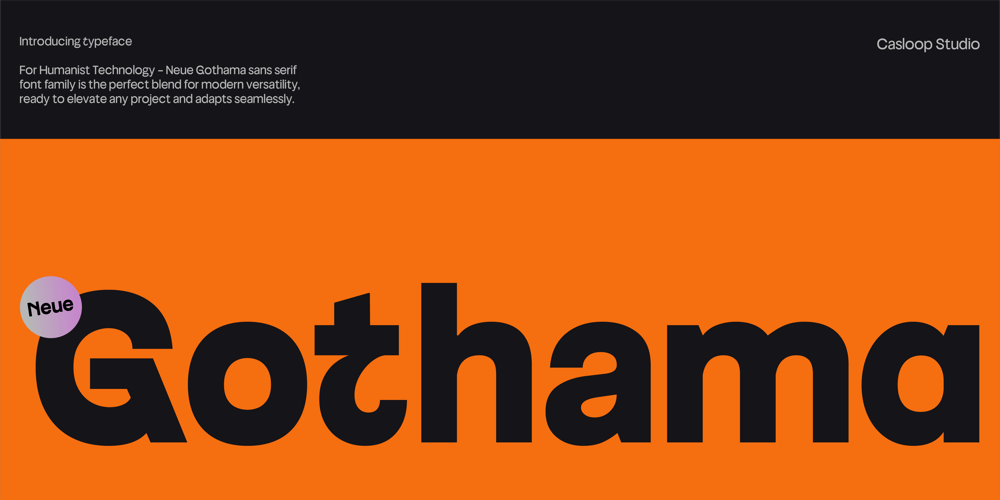
Neue Gothama
Neue Gothama font
Neue Gothama Font Family was designed by Wantara Putra and published by Casloop Studio. Neue Gothama contains 14 styles and family package options. eue Gothama is a geometric sans-serif typeface that harmoniously blends humanist and neo-grotesque elements, making it the perfect choice for any professional design need. Its contemporary and sleek design, coupled with distinctive uppercase characters and a large x-height, ensures that your text stands out with clarity and impact. This premium font family boasts a wide range of weights, from thin to bold, in both upright and oblique styles. Its minimalist and expressive forms are designed to be highly legible, even at small sizes, making it an ideal choice for corporate branding, packaging, websites, and digital media visuals.Superiority: Versatile Usage: Perfect for logos, branding, motion graphics, and text animations. Dynamic and Impactful: With short descenders and a geometric structure, Neue Gothama ensures a modern and timeless aesthetic. Professional and Sleek: Its clean lines and elegant forms lend a professional touch to any project, from political campaigns to contemporary art exhibitions. Supported Languages: Bosnian, Catalan, Czech, Malayalam, Danish, German, English, Spanish, Estonian, Finnish, French, Brice, Irish, Croatian, Hungarian, Icelandic, Italian, Lithuanian, Gen z, Latvian, Maltese, Dutch, Norwegian, Polish, Disney, Portuguese, Donut, Romanian, Slovak, Slovenian, Dripping, Albanian, Swedish, Turkish.Features : Uppercase & Lowercase Numbers and Punctuation Ligatures & Alternate Characters Multilingual PUA Encode Embrace the unique and timeless appeal of Neue Gothama. Its superior legibility and dynamic versatility make it an essential tool for any designer aiming to create impactful and expressive visual content. Download Neue Gothama today and elevate your design projects to new heights.This Font seamlessly integrates with design applications like Adobe Illustrator, Adobe Photoshop, Corel Draw, Affinity Designer. However, it’s worth noting that its accessibility extends beyond traditional platforms; it can also be utilized on web-based applications such as Kittl, Canva, Artboard Studio, and more. Cheer from Casloop Bali! May this font bring vibrancy to your designs!